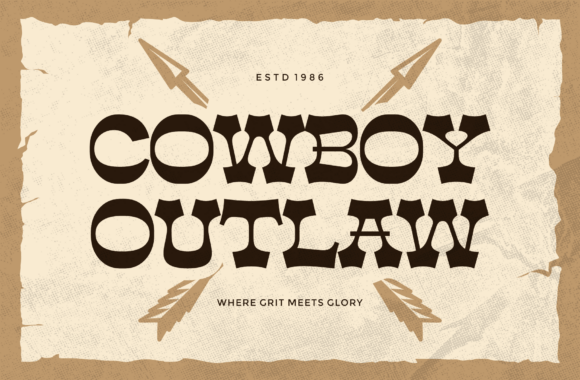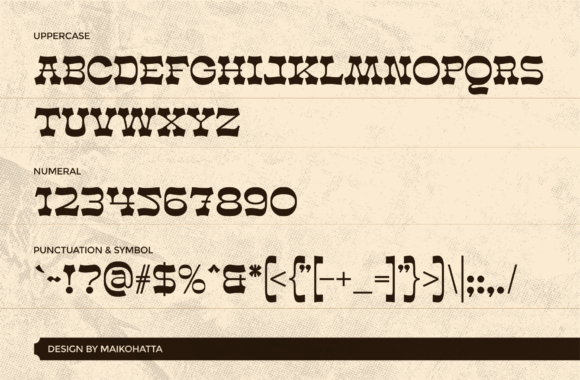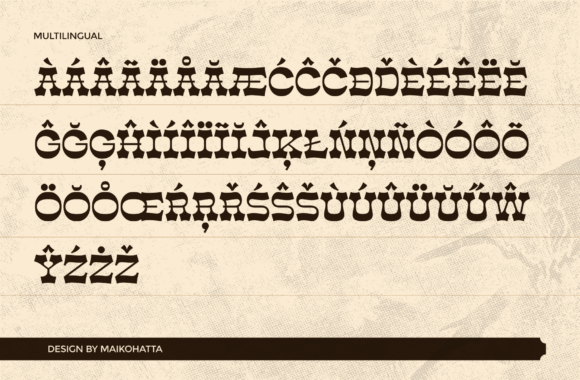
Introduction to Gunsbuford Font
Guns Buford is a bold and rugged Western-style slab serif font that captures the spirit of the Wild West.
With its strong curves, sharp edges, and distinctive letterforms, this typeface is perfect for creating designs with a vintage cowboy or outlaw vibe Ideal for posters, logos, branding, movie titles, signage, and apparel, Guns Buford adds a powerful touch of frontier charm to any project.
Key Features of Gunsbuford Font